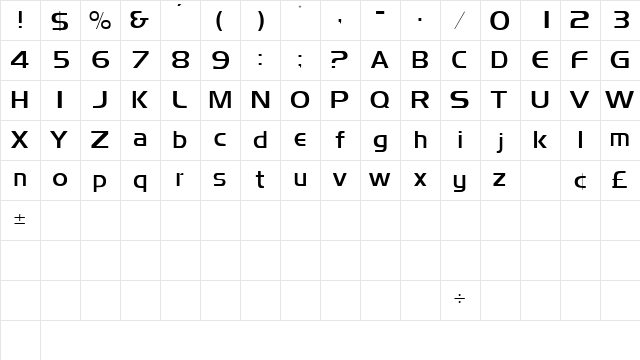
SimplixSSK Regular
Design Context for SimplixSSK Typeface
SimplixSSK is a composed and adaptable typeface that performs quietly and consistently across a wide range of design contexts.
Pro Tip: Pair SimplixSSK with a font of contrasting weight or personality to build a more expressive typographic hierarchy.